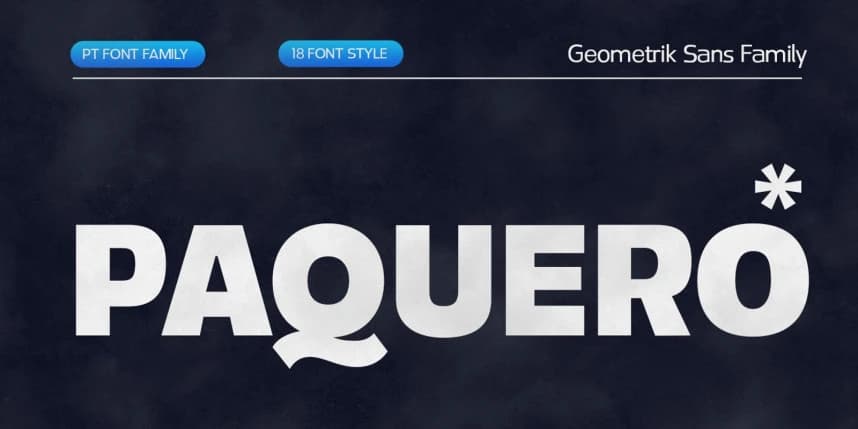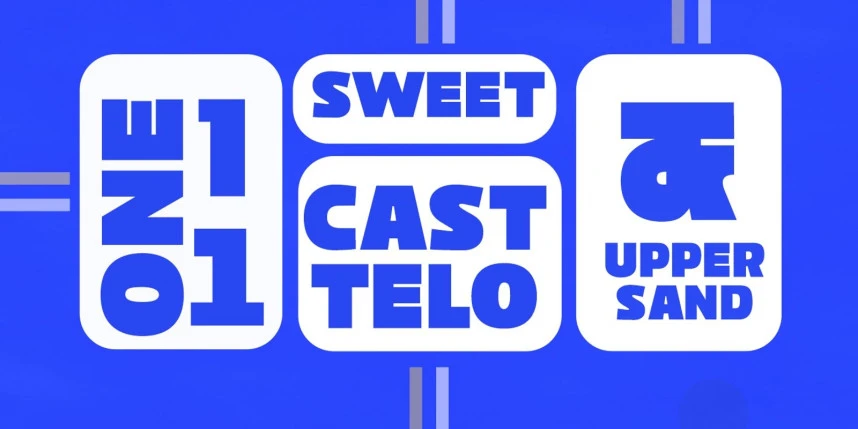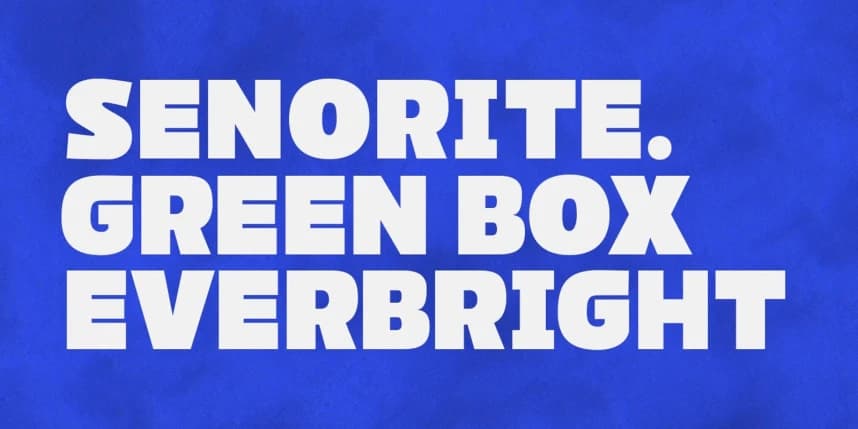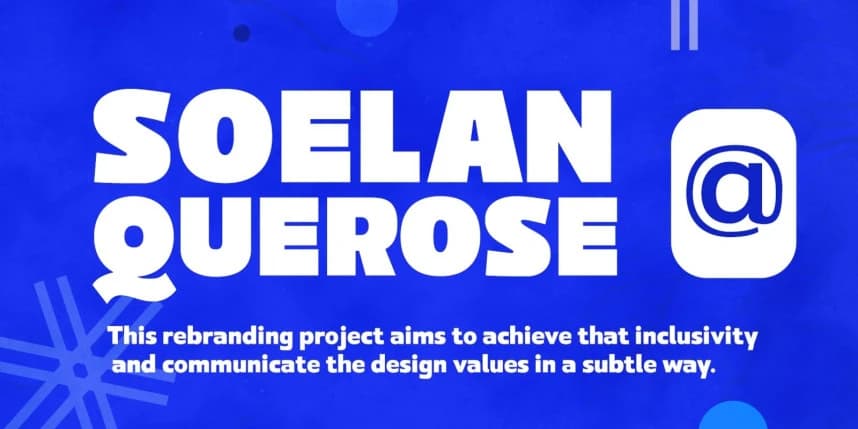
Paquero Font Family
Paquero Font Family is a contemporary geometric sans font family. Strong geometric characters combine with sharp modern cuts, resulting in a strong font with a distinctive personality. The bold repetition of basic shapes creates a clear rhythm